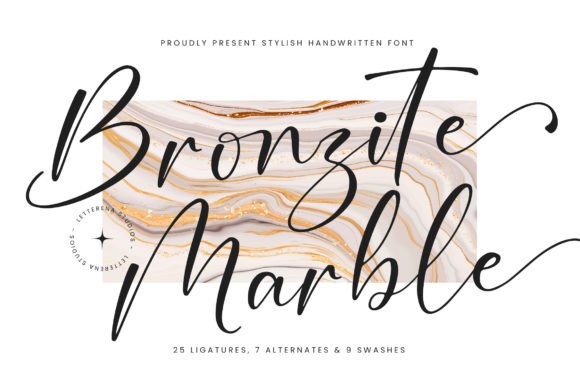
The Hunt for the Perfect Luxury Script Font: Discovering Bronzite Marble
Ah, the thrill of the design hunt! I still remember the project that led me to discover the stunning Bronzite Marble font. I was working on a luxury branding project for a high-end jewelry client, and I was struggling to find the perfect font that exuded elegance and sophistication. The client wanted a font that would make their brand stand out, but still convey a sense of timelessness and classic luxury. After hours of scouring font libraries and design marketplaces, I stumbled upon Bronzite Marble – a beautiful, handwritten font from Letterena that would change the game for my project.
An Honest Review of Bronzite Marble
- ✨ Elegant and sophisticated: Bronzite Marble has a luxurious feel that’s perfect for high-end branding and design projects.
- ✅ Highly versatile: This font can be used for a wide range of projects, from logos and packaging to posters and social media graphics.
- 💫 Beautifully crafted: The attention to detail in Bronzite Marble is exceptional, with intricate lettering and a flowing script style.
While Bronzite Marble is an amazing font, there are a few things to keep in mind:
- ⚠️ Limited use in body text: Due to its script nature, Bronzite Marble works best as a display font or for short paragraphs. It may not be the best choice for lengthy body text.
- 🤔 Occasional kerning issues: As with any font, there may be some kerning issues when using Bronzite Marble with certain letter combinations. Be sure to adjust as needed.
One of the standout features of Bronzite Marble is its range of OpenType features and glyphs. These allow you to customize your text and add visual interest to your designs. Some of the features you can expect to find include:
- Ligatures: Combine certain letter pairs for a more elegant look.
- Stylistic alternates: Swap out letters for alternative designs.
- Glyphs: Access additional characters and symbols to enhance your design.
The Story Behind Bronzite Marble
Bronzite Marble was designed with the goal of creating a luxurious, high-end script font that would evoke the elegance of classic marble. The designer aimed to capture the intricate details and flowing curves of traditional marble carvings, and translate them into a modern digital font. The result is a stunning, sophisticated font that’s perfect for luxury branding and design projects.
Q: What type of projects is Bronzite Marble best suited for?
A: Bronzite Marble is perfect for luxury branding, packaging, posters, social media graphics, and any project that requires an elegant, sophisticated font.
Q: Is Bronzite Marble easy to read?
A: While Bronzite Marble is a beautiful font, its script nature means it may not be suitable for lengthy body text. It’s best used for headlines, titles, and short paragraphs.